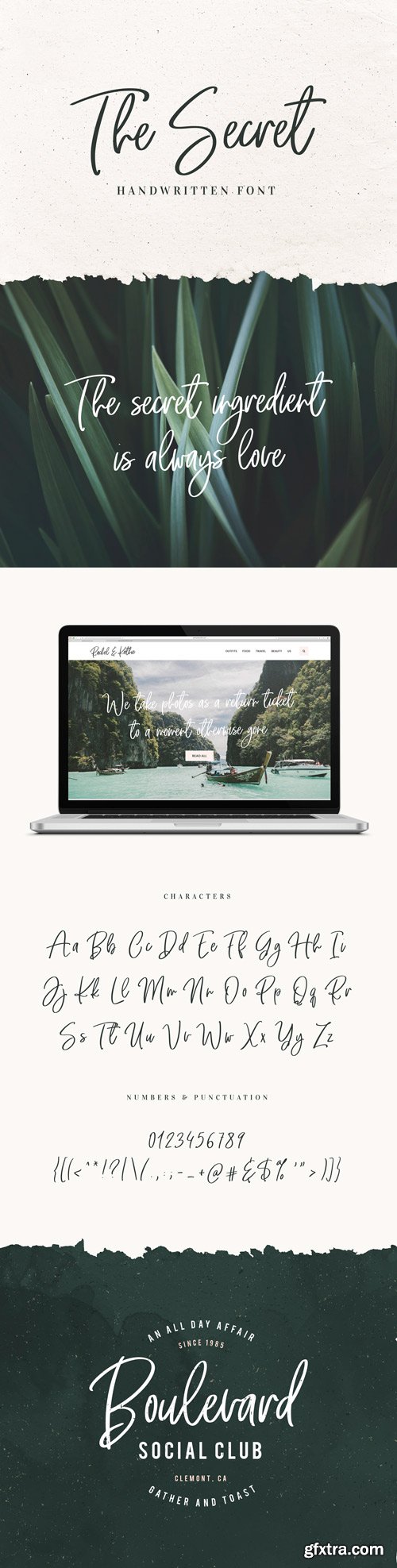
The Secret – Handwritten Font
The Secret is a playful font, which can be used for all kinds of creative projects: logos, branding or on items for sale such as prints, mugs, pillows, merchandise etc. The Secret comes with upper and lowercase basic characters, numerals, marks and punctuation. You will receive TTF, OTF and WOFF formats.